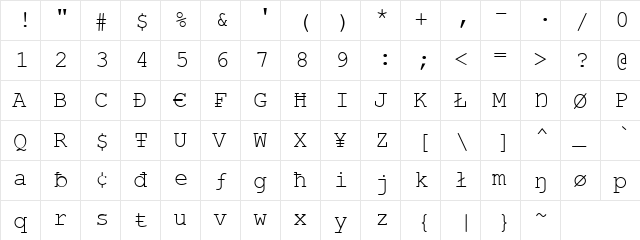
Ajay Vijay Regular
Design Context for Ajay Vijay Typeface
Ajay Vijay takes a measured approach to typography — its balanced proportions and neutral character make it a reliable workhorse for both digital and print work.